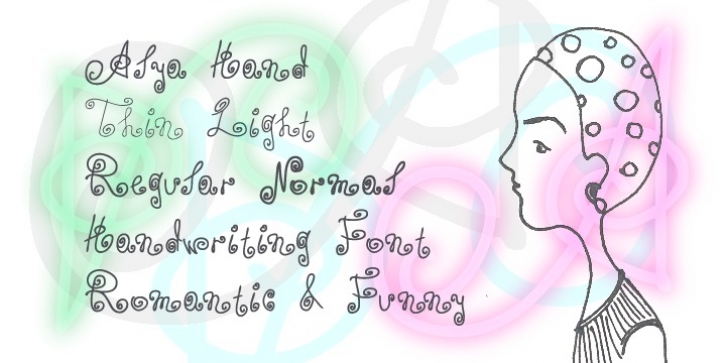
Alya Hand was designed by Konstantin Boldovskiy, Alya Boldovskaya and published by Konst.ru. Alya Hand contains 4 styles and family package options.
Handwritten font for a romantic and lovely messages, funny texts and happy postcards.
This font is based on the Alya's handwriting for friendly messages. Also maybe use for menu, headlines, logos etc.
· Alya Hand
· Alya Hand Light
· Alya Hand Normal
· Alya Hand Thin